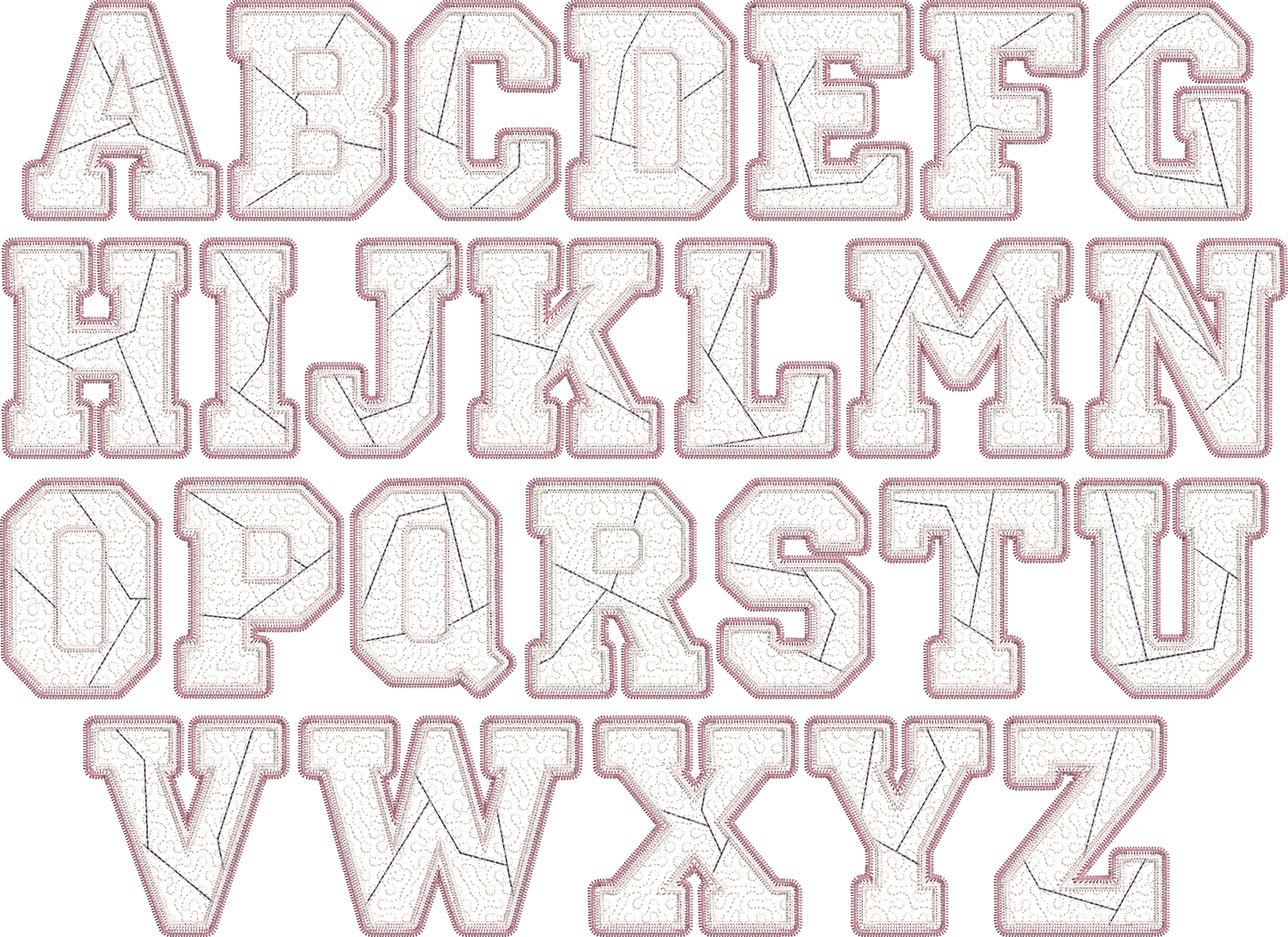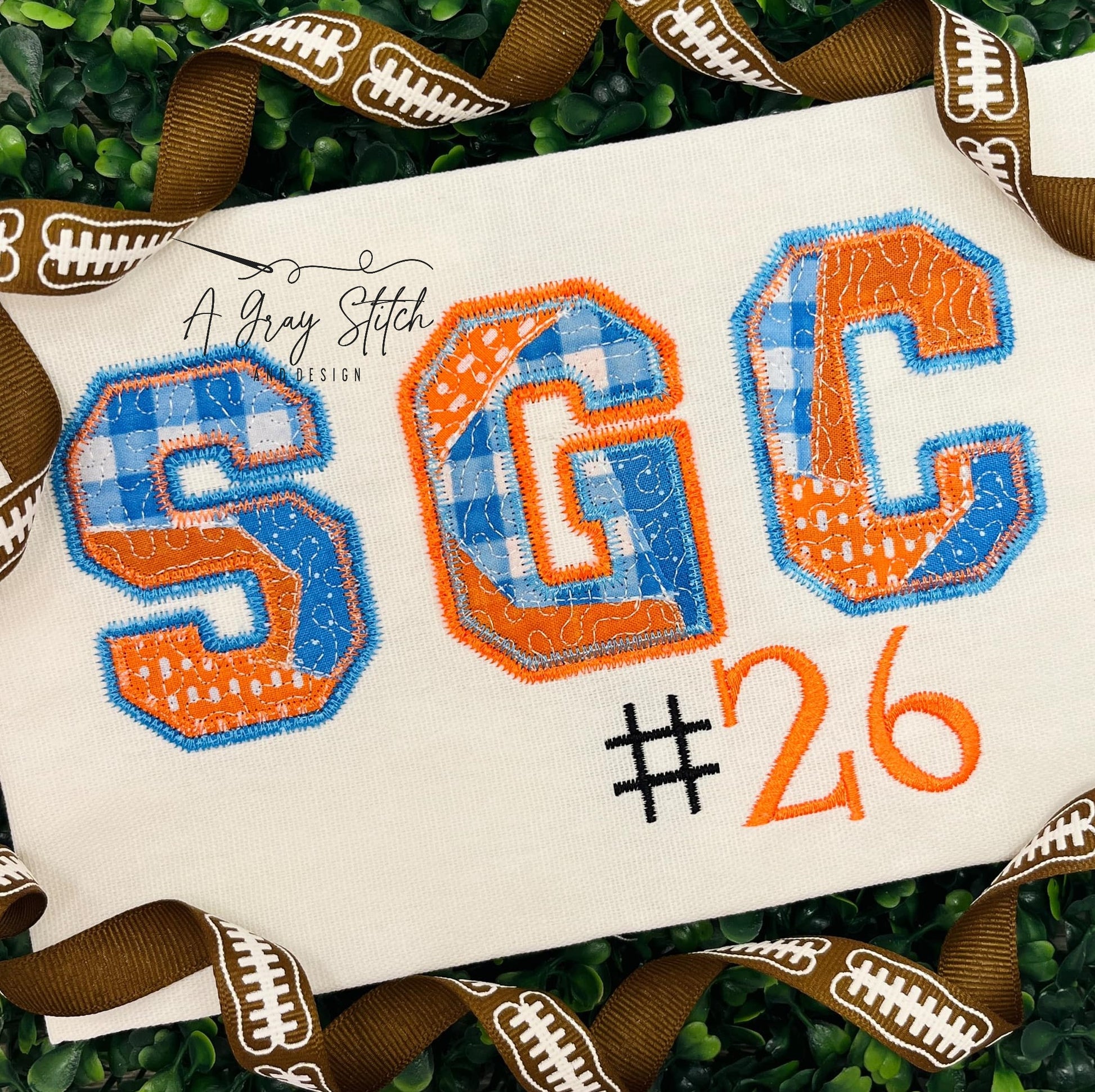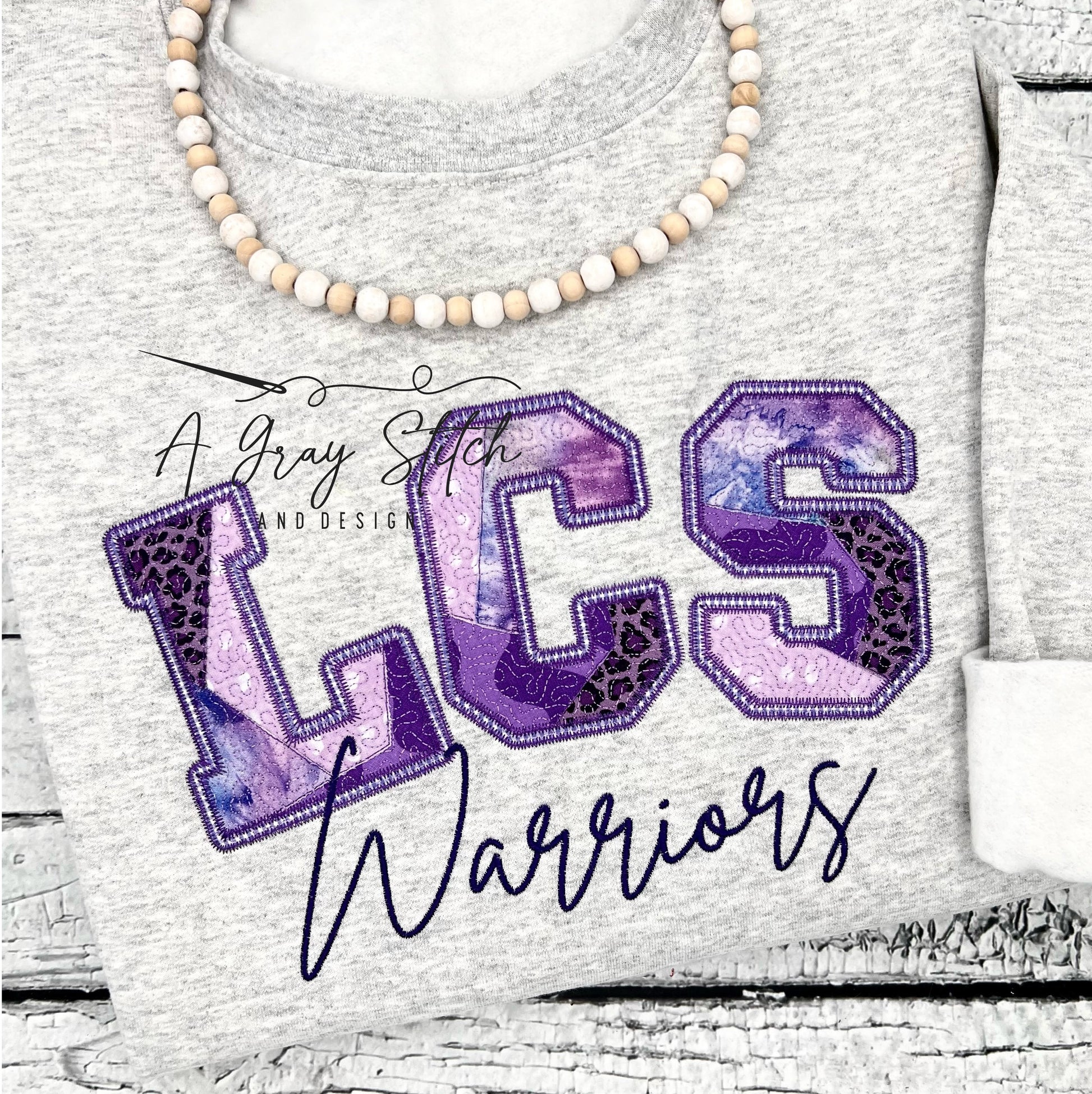
Quilted Patchwork Football Nights Font
Zig Zag Font Applique Design
Placement and tackdown stitch for batting to give the quilted feel in the first two steps before the patchwork applique pieces.